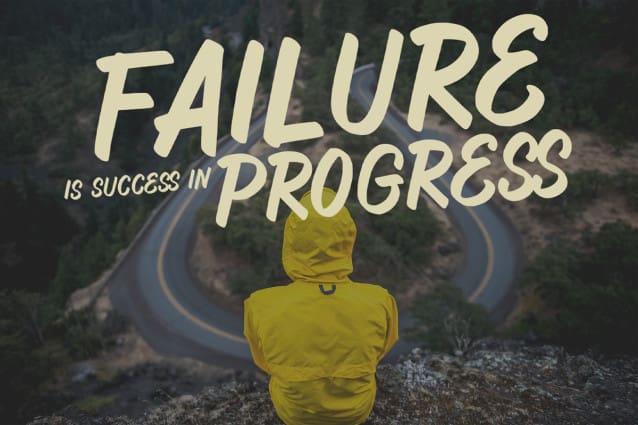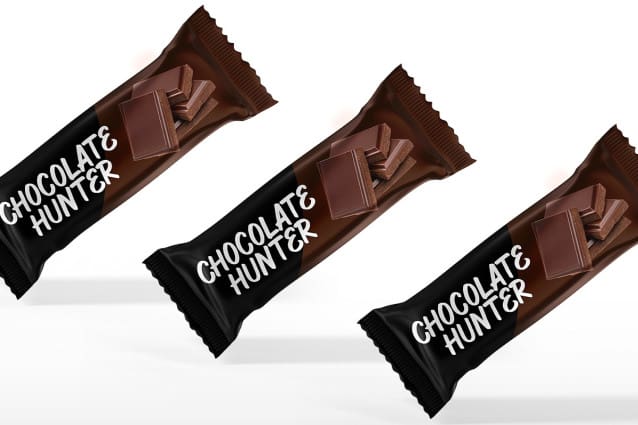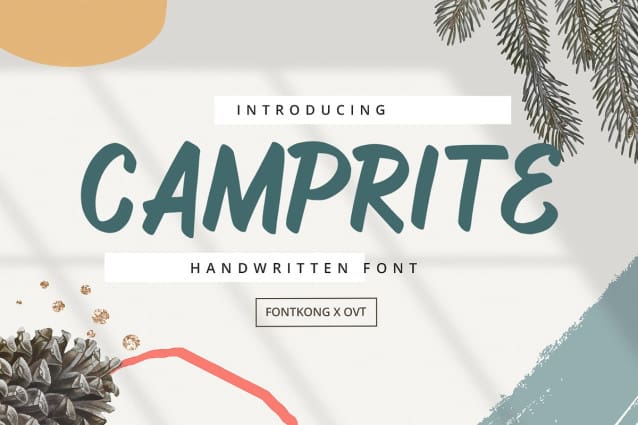
Camprite Font
Camprite Font, a beautifully crafted handwritten font that brings a personal and authentic touch to your designs. With its smooth, flowing lines and organic feel, Camprite captures the charm and spontaneity of natural handwriting, making it perfect for a wide range of creative projects.
Ideal for greeting cards, invitations, social media graphics, branding materials, and more, Camprite adds a warm and inviting aesthetic to your work. Each character is designed to mimic the fluidity and individuality of true hand lettering, ensuring your designs stand out with a unique and personal flair.
The “Camprite” font includes a full set of uppercase and lowercase letters, numbers, and punctuation marks, providing versatility and flexibility for all your design needs. Whether you’re creating heartfelt messages or stylish brand elements, Camprite enhances your projects with its genuine and expressive style.
Add a touch of authenticity to your designs with the elegant and charming Camprite font.